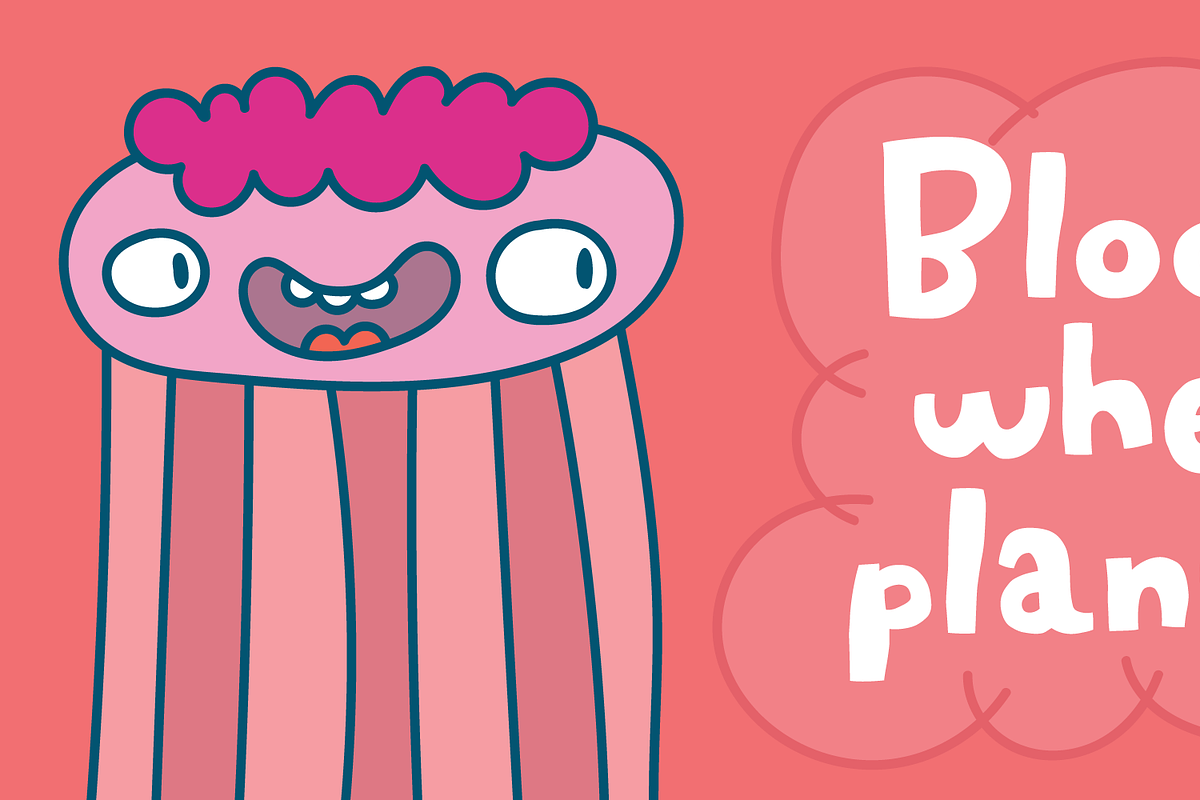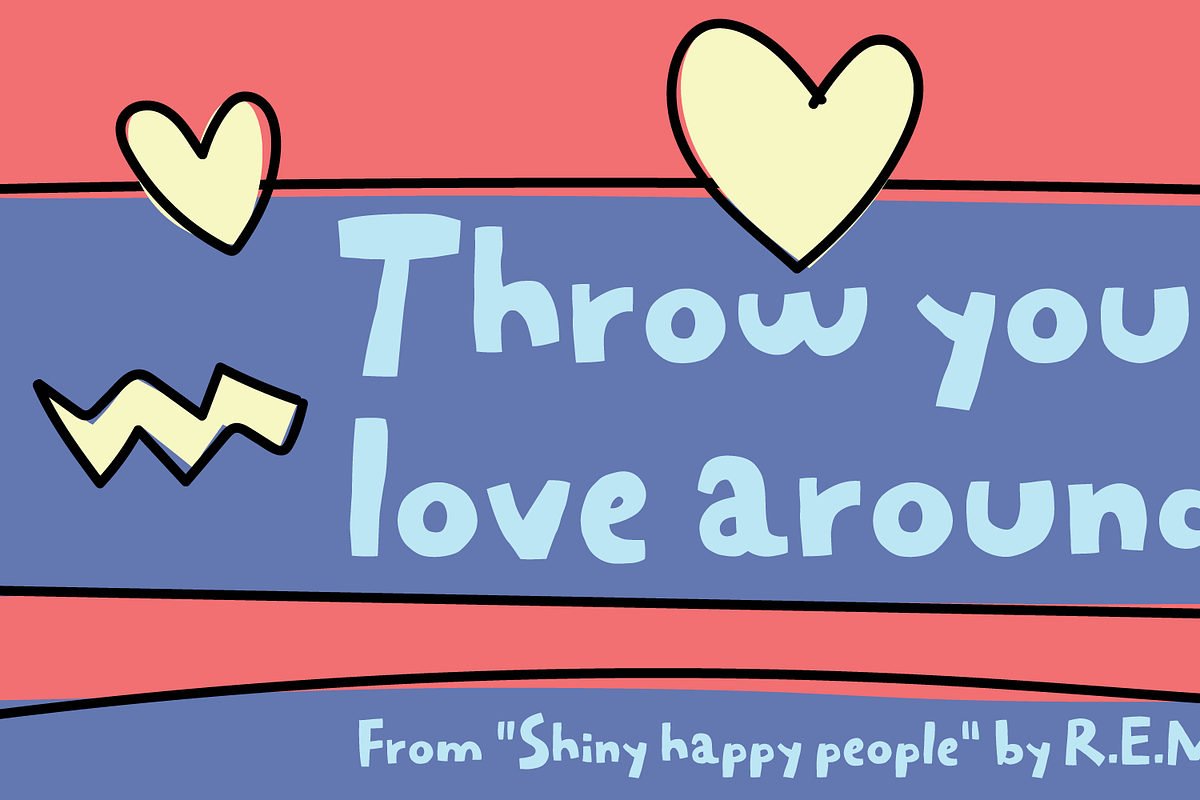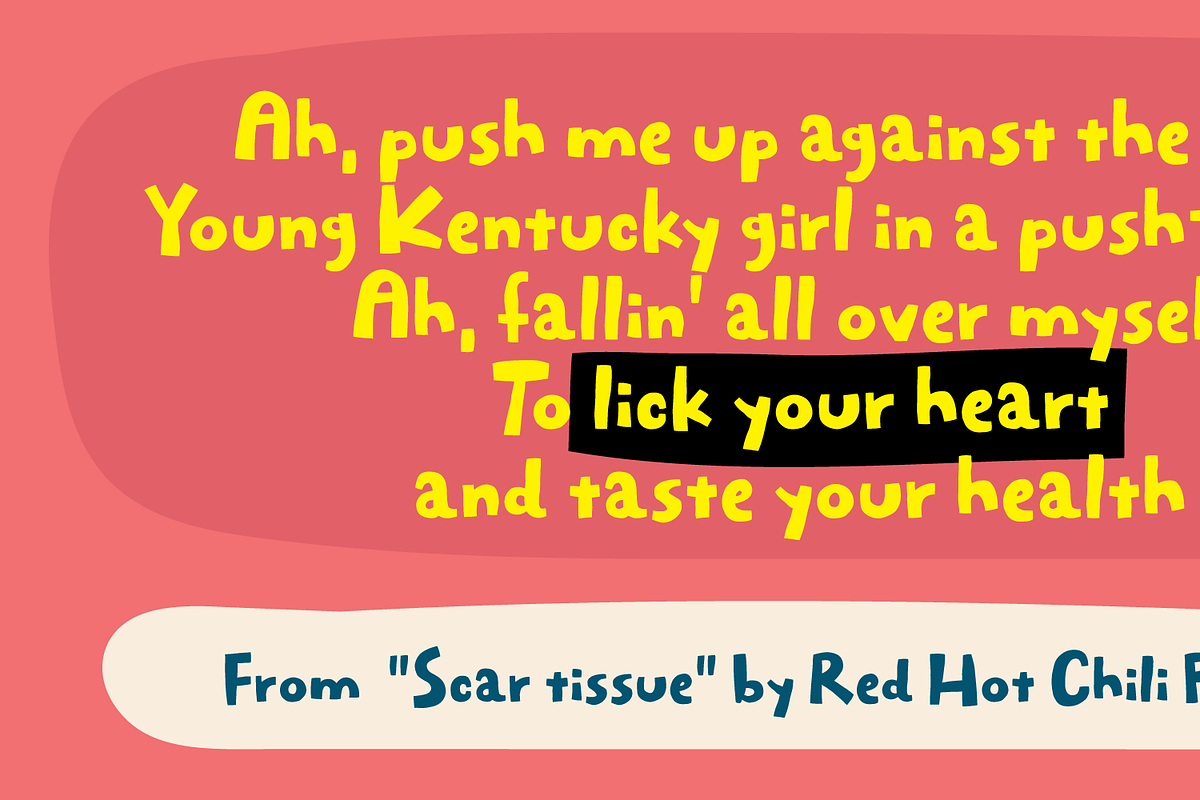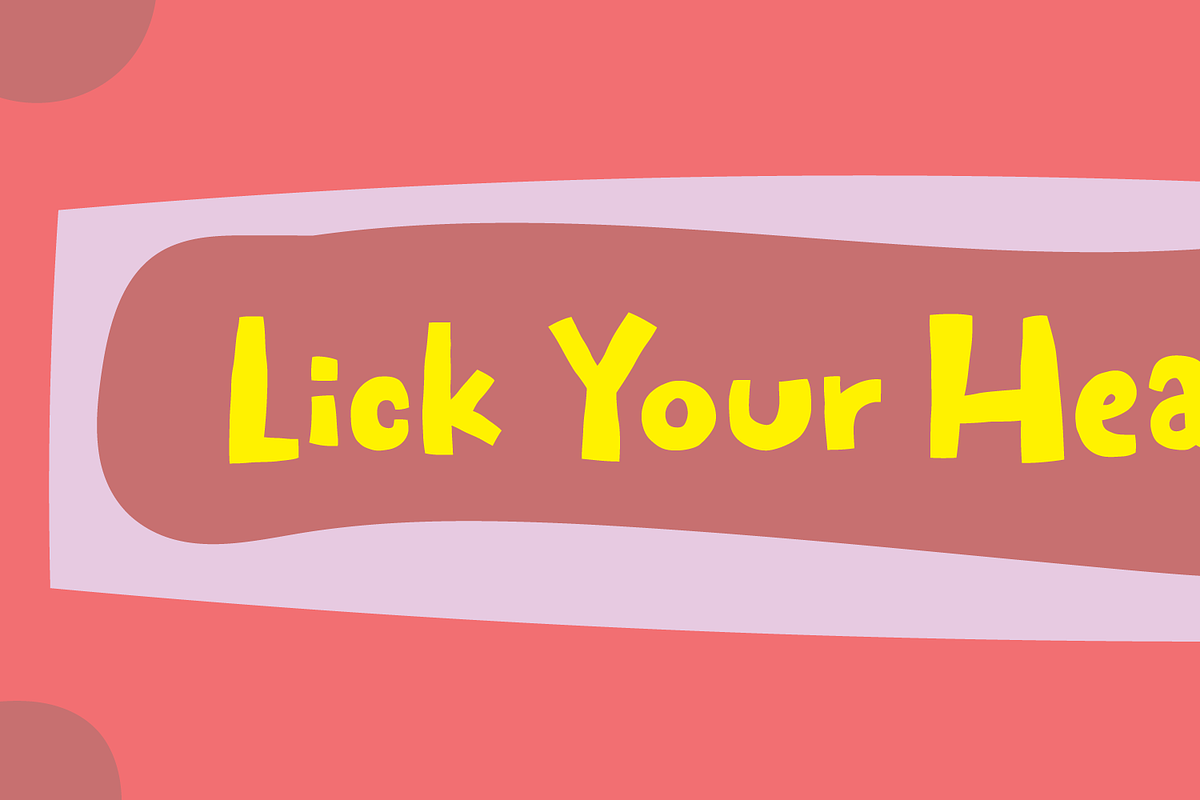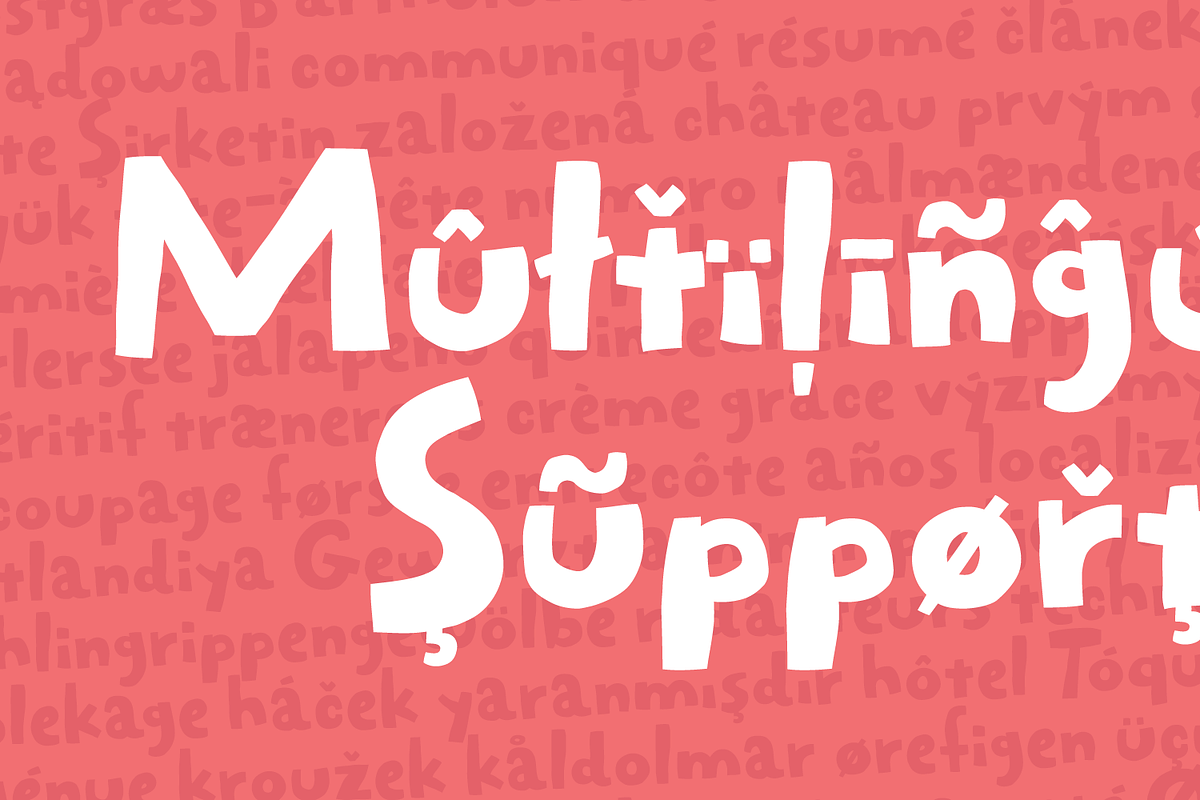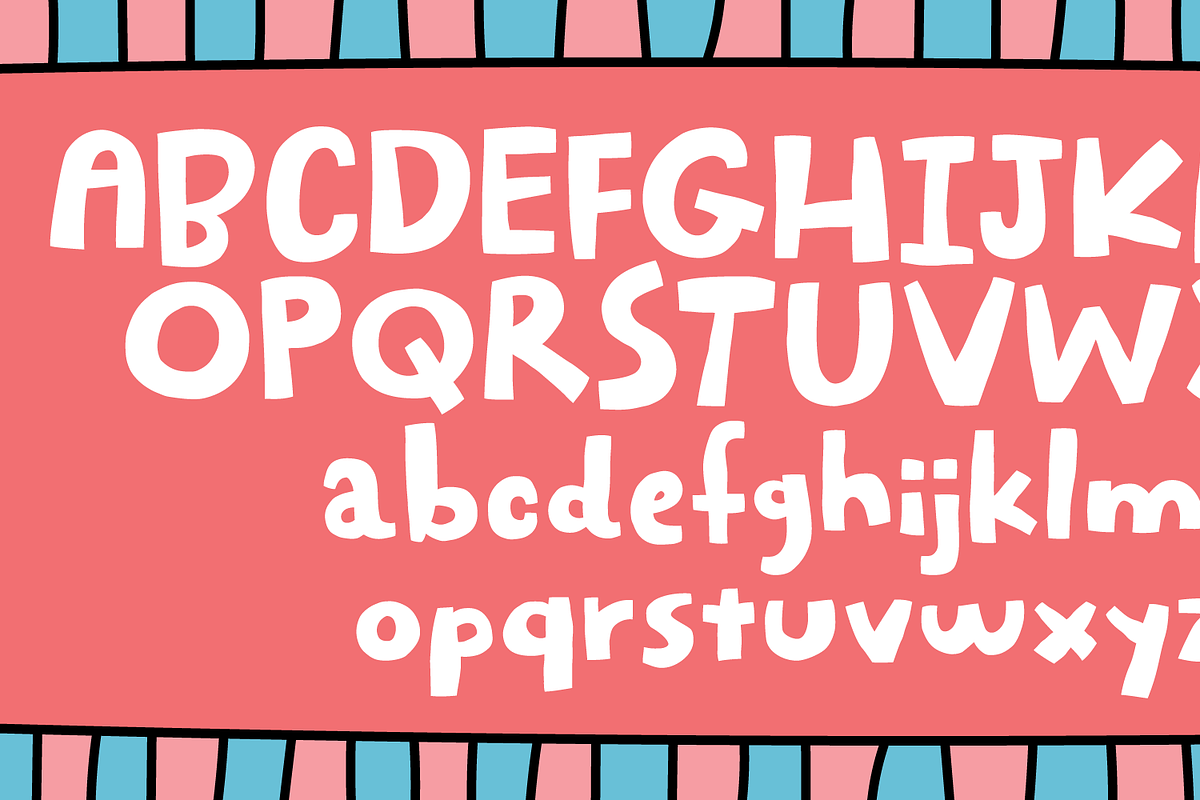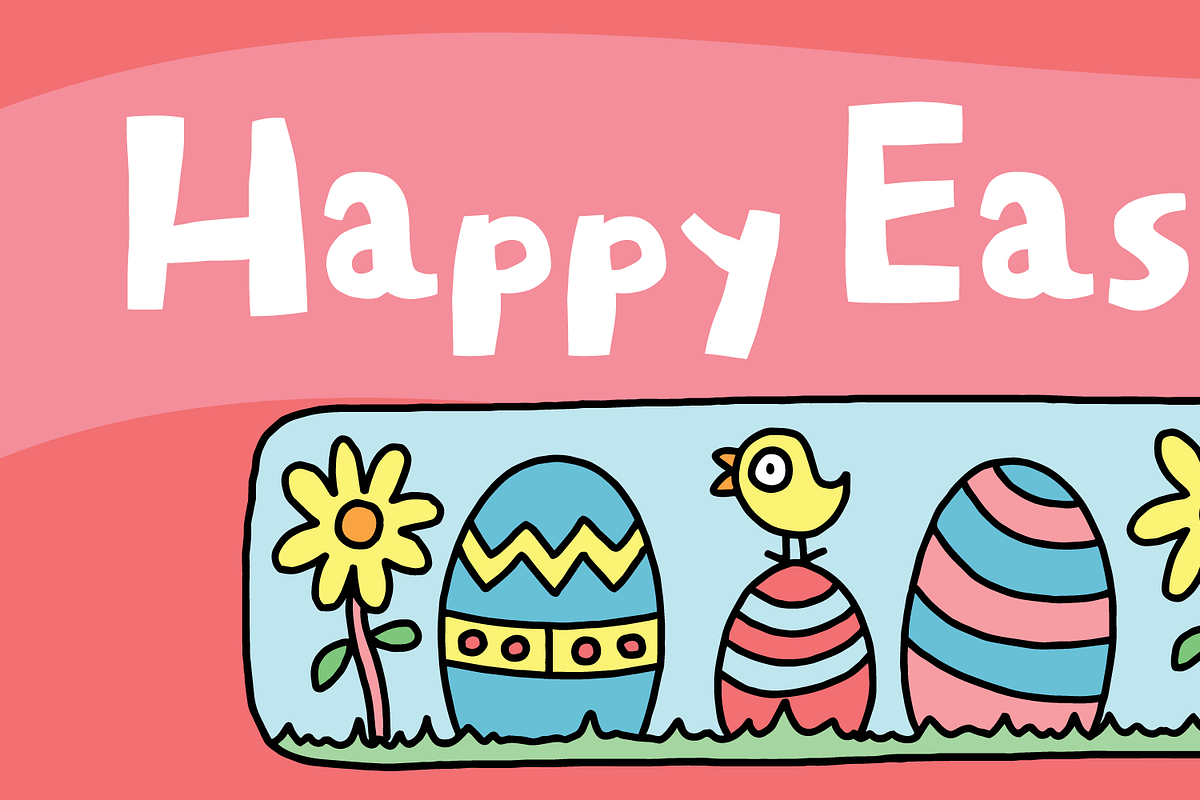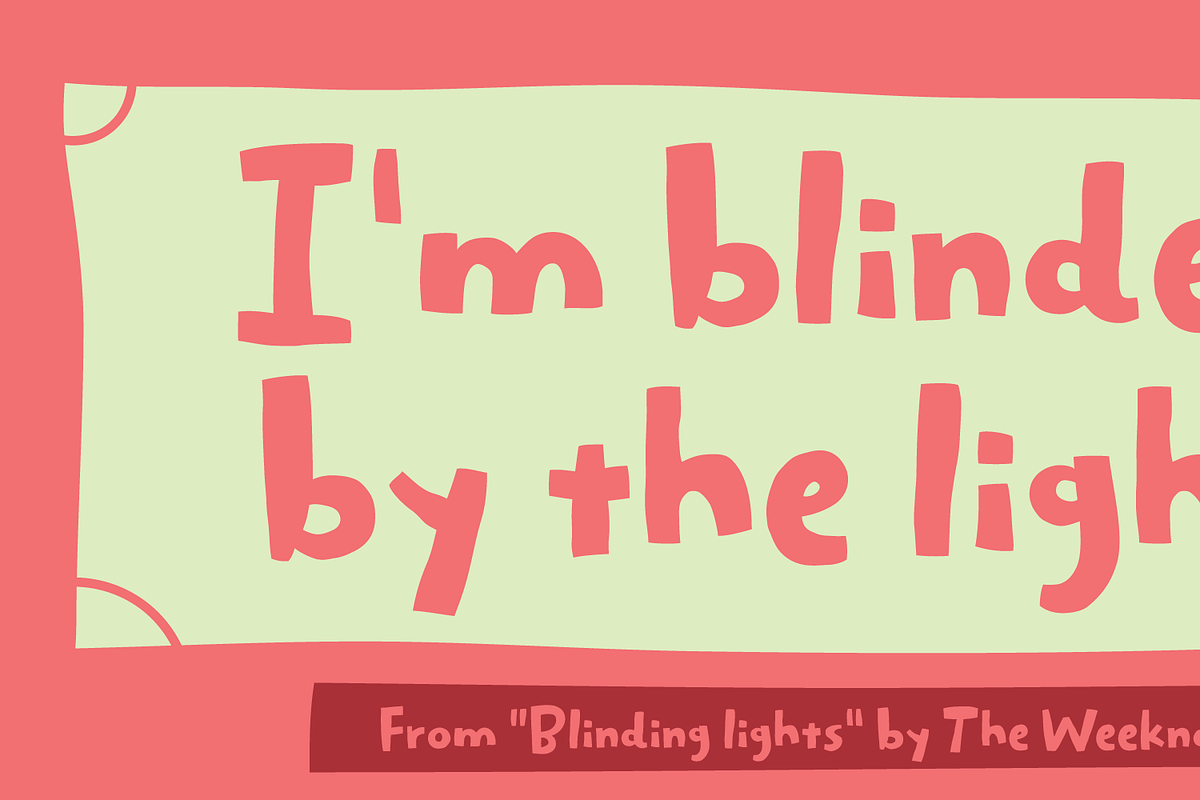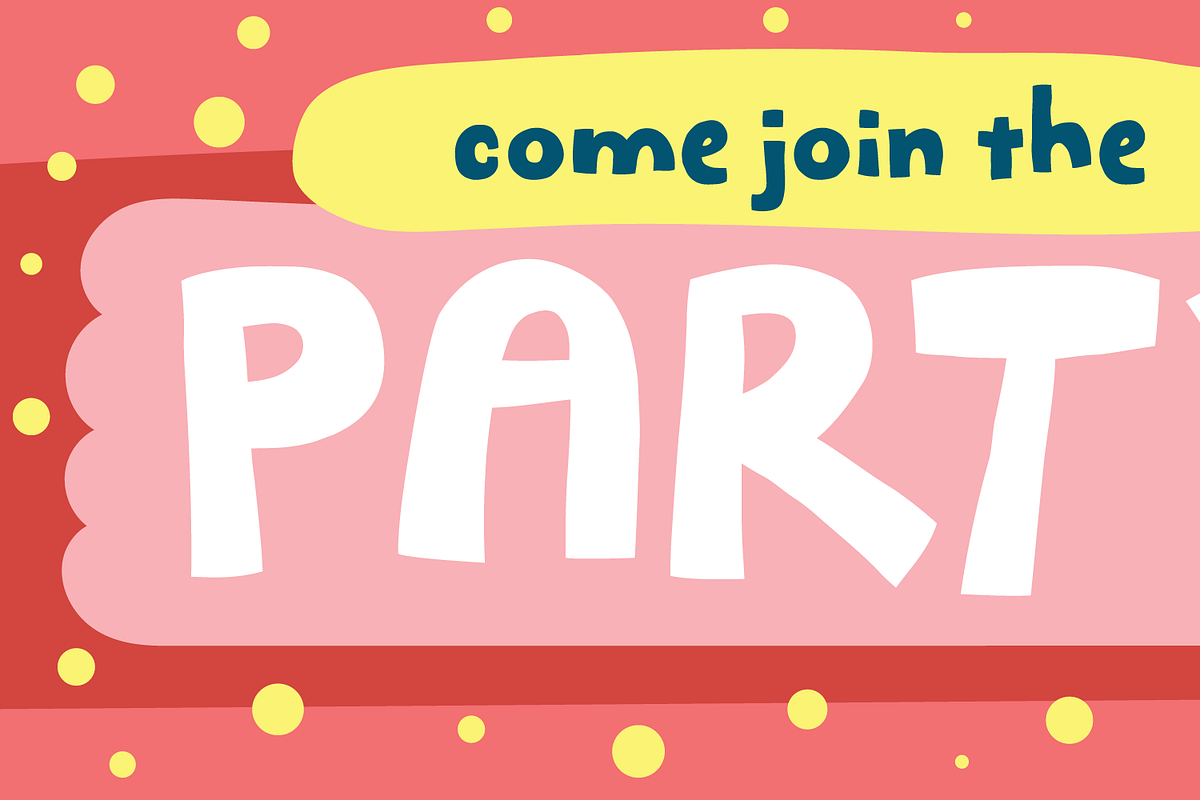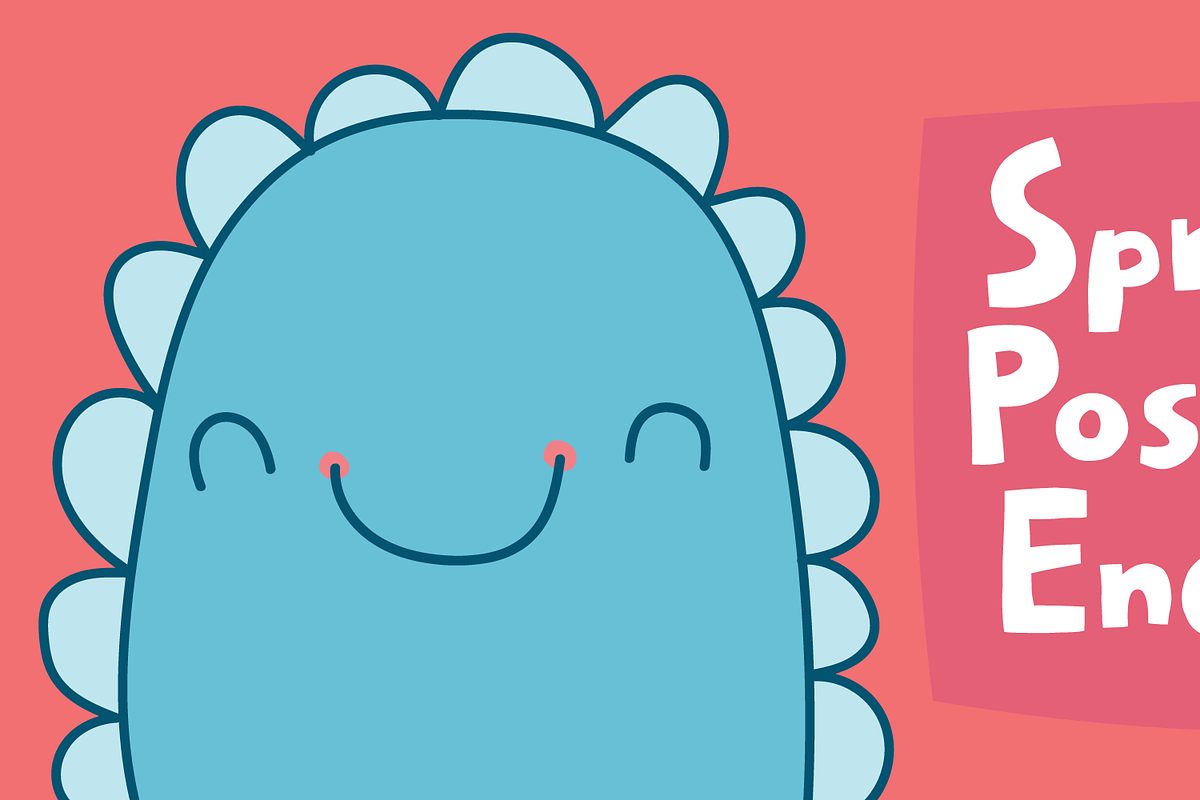
Lick Your Heart
“Lick Your Heart” is my happy little party bouncing font! It’s chunky and full of cheerful energy, like letters cut from soft candy or chewy caramels. The bold shapes and smooth curves make it super friendly and easy to read, while still feeling quirky and full of personality. It’s the kind of font that smiles at you, invites you in, and maybe even tells a joke or two. Perfect for fun, colorful designs where seriousness is absolutely not invited!